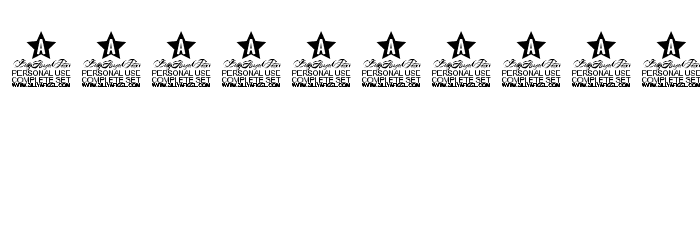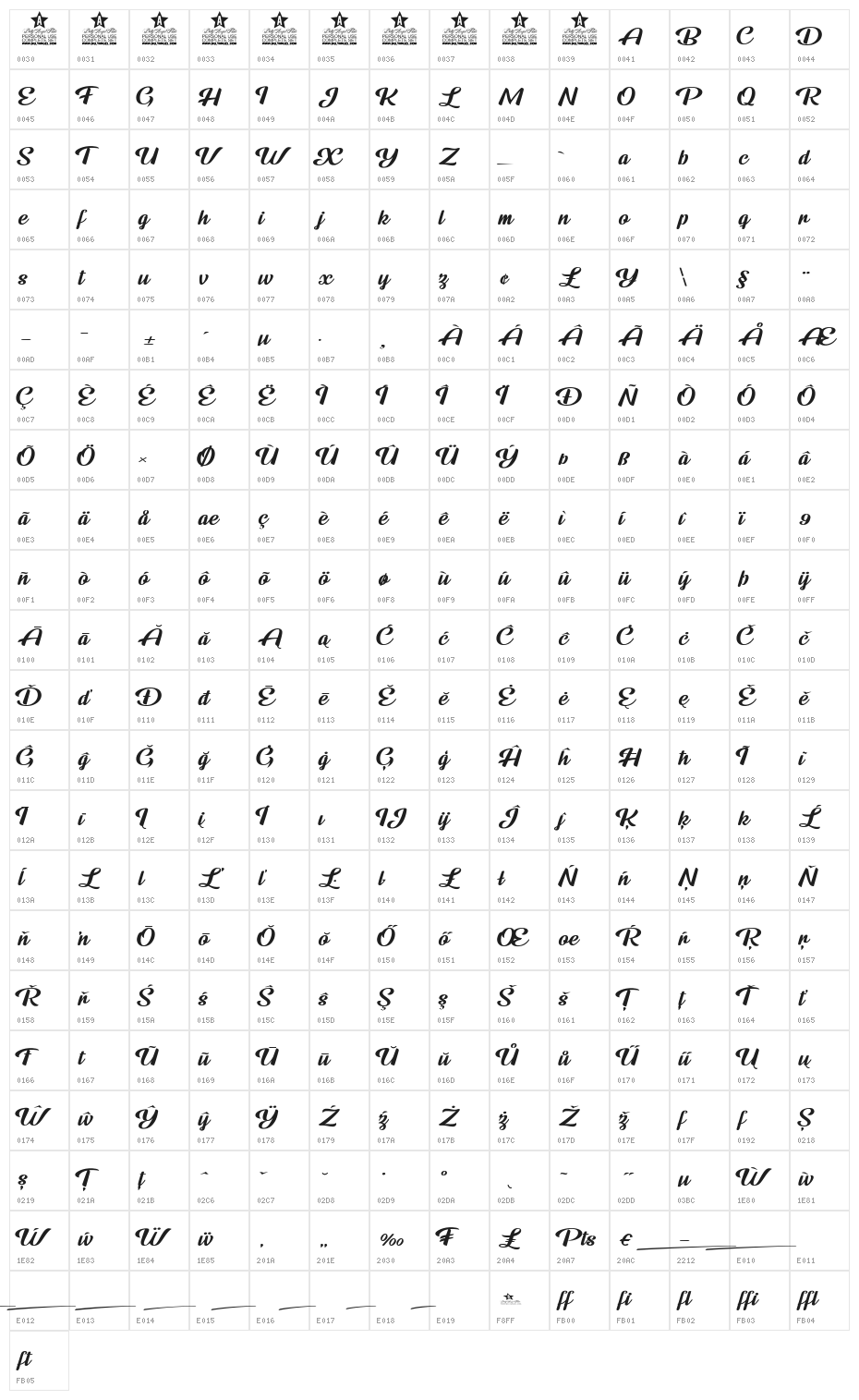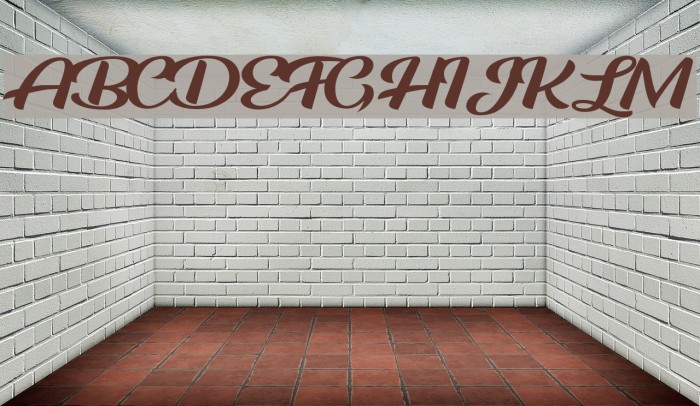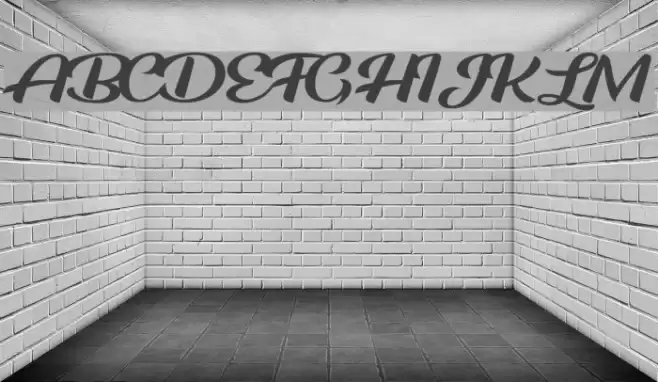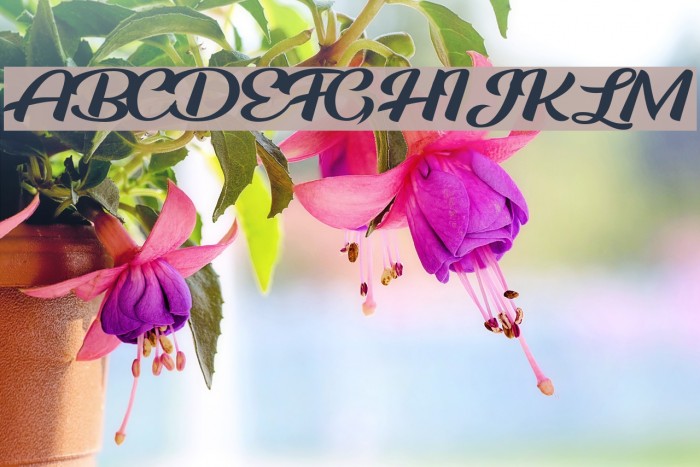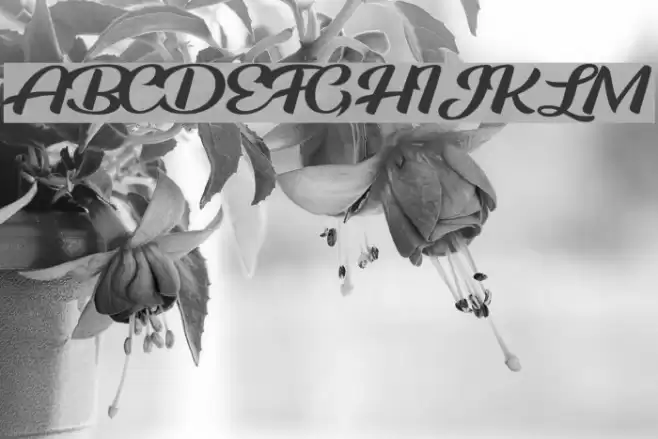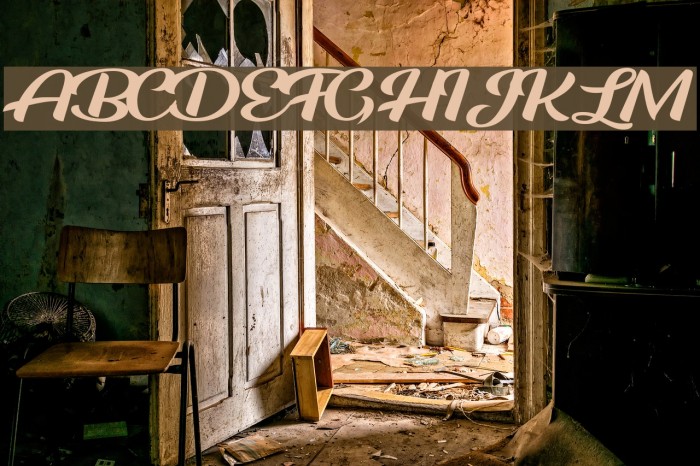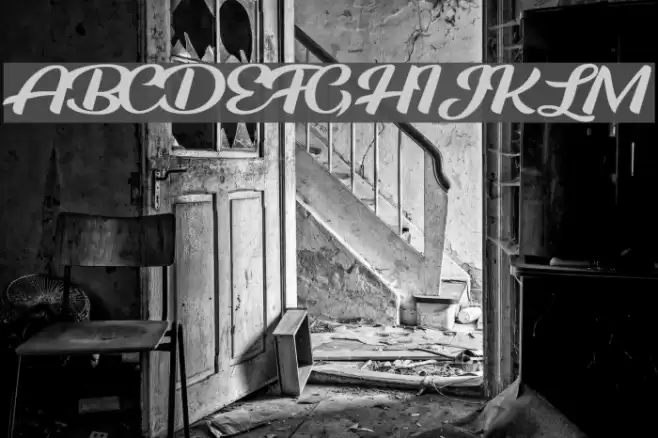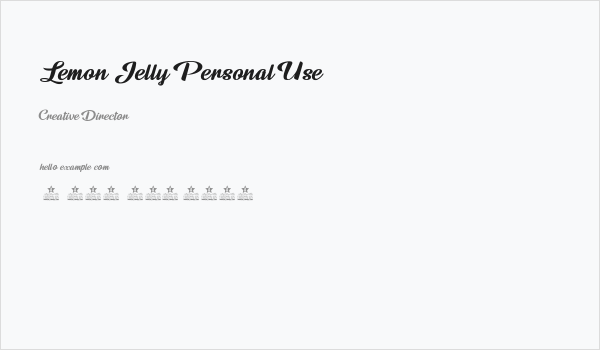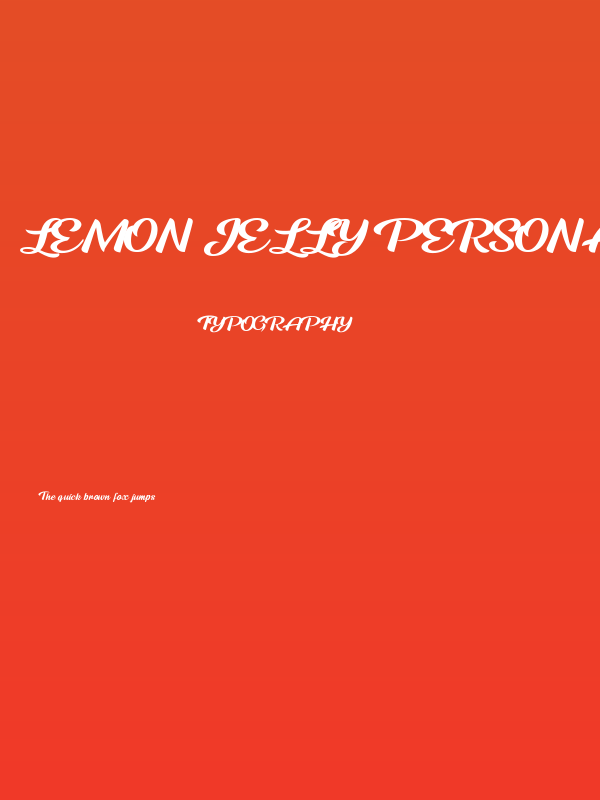
Lemon Jelly Personal Use Font
Lemon Jelly Personal Use Description
This font features a bold and flowing script style, characterized by its elegant and smooth curves. The uppercase letters are particularly ornate, with sweeping lines and a sense of movement that adds a dynamic quality. The lowercase letters maintain a consistent flow, enhancing readability while preserving the decorative nature. The numbers and special characters are designed to match the overall aesthetic, ensuring a cohesive look across all text elements. This font exudes a sense of sophistication and flair, making it suitable for projects that require a touch of elegance.